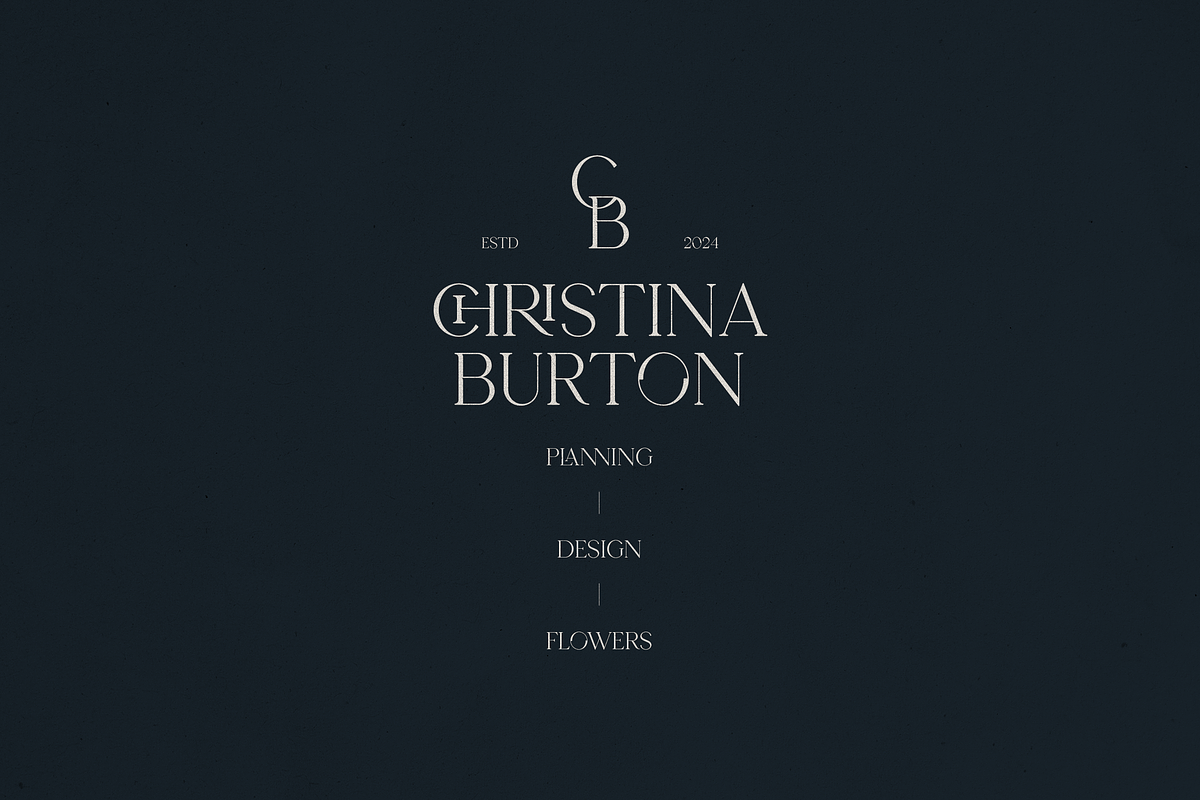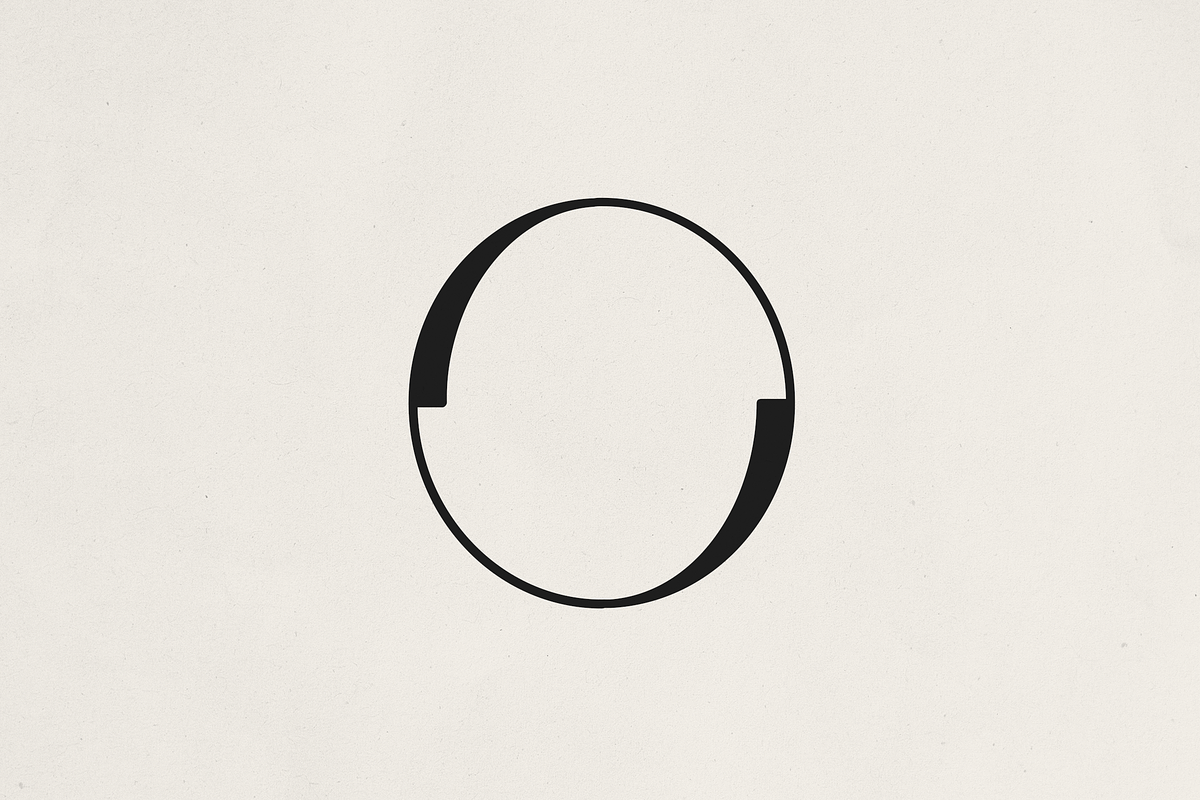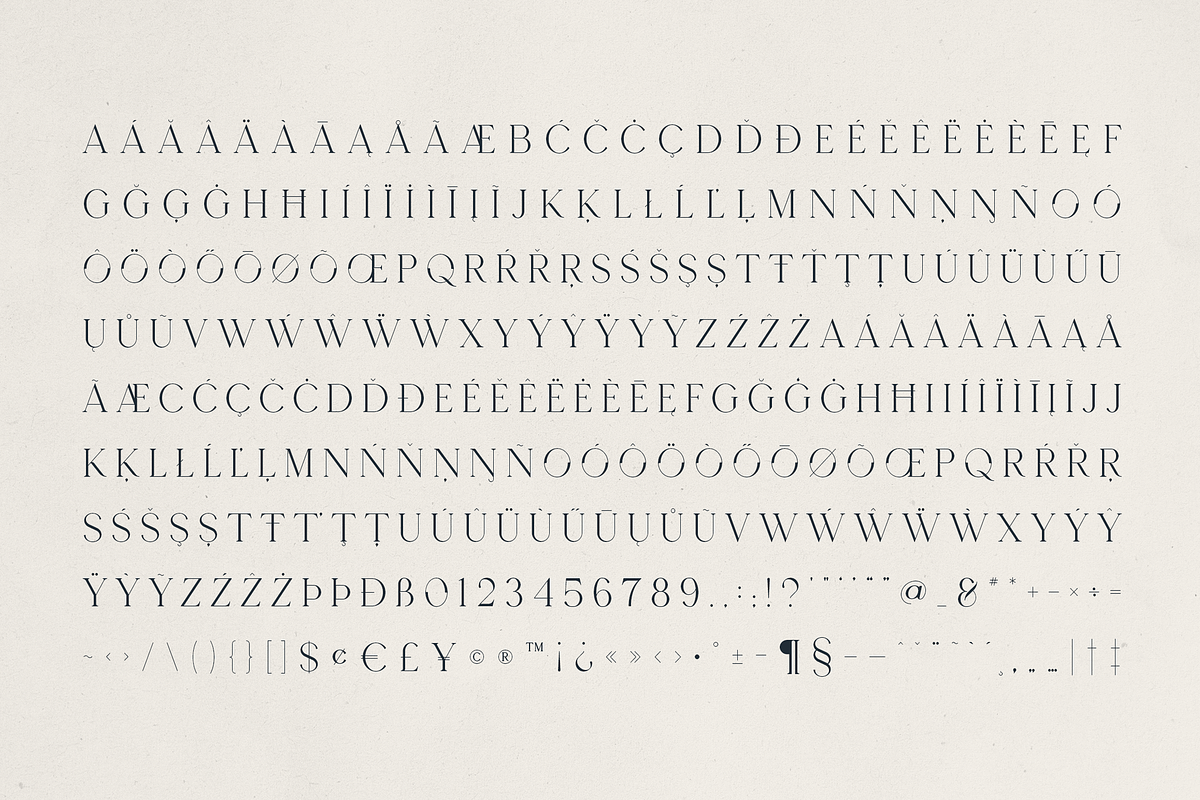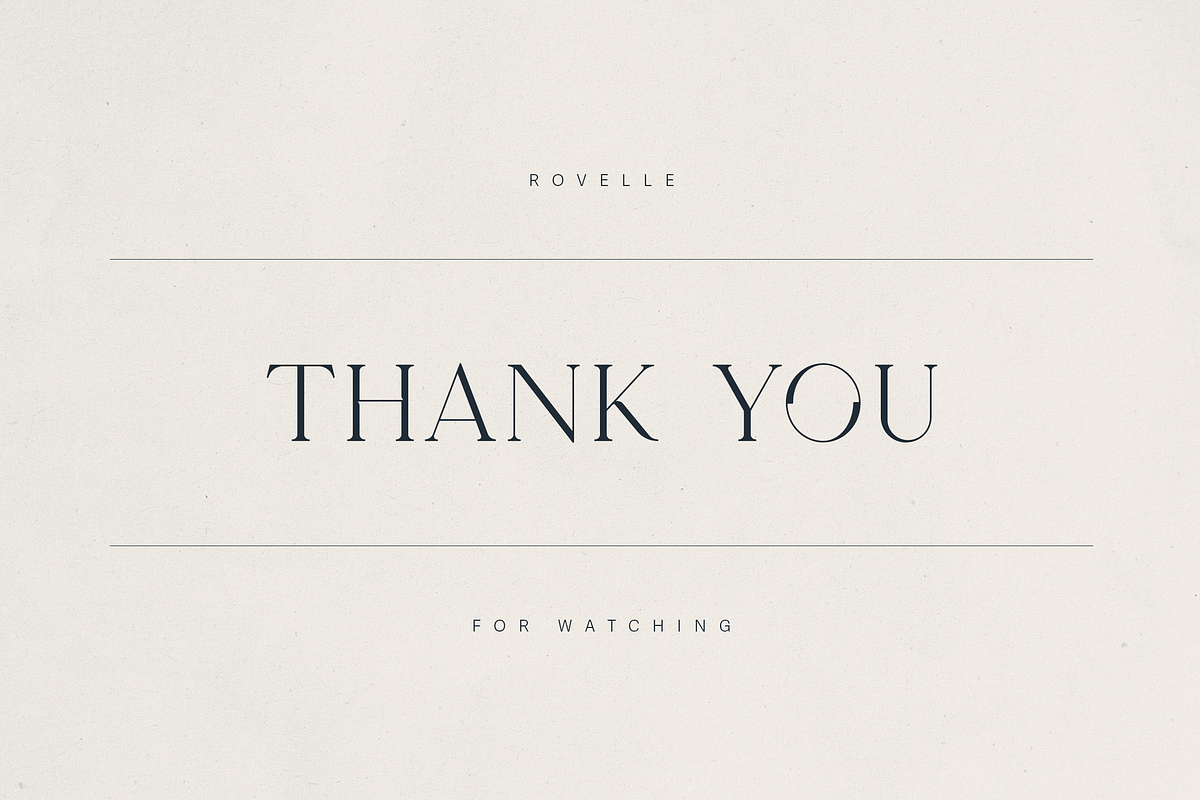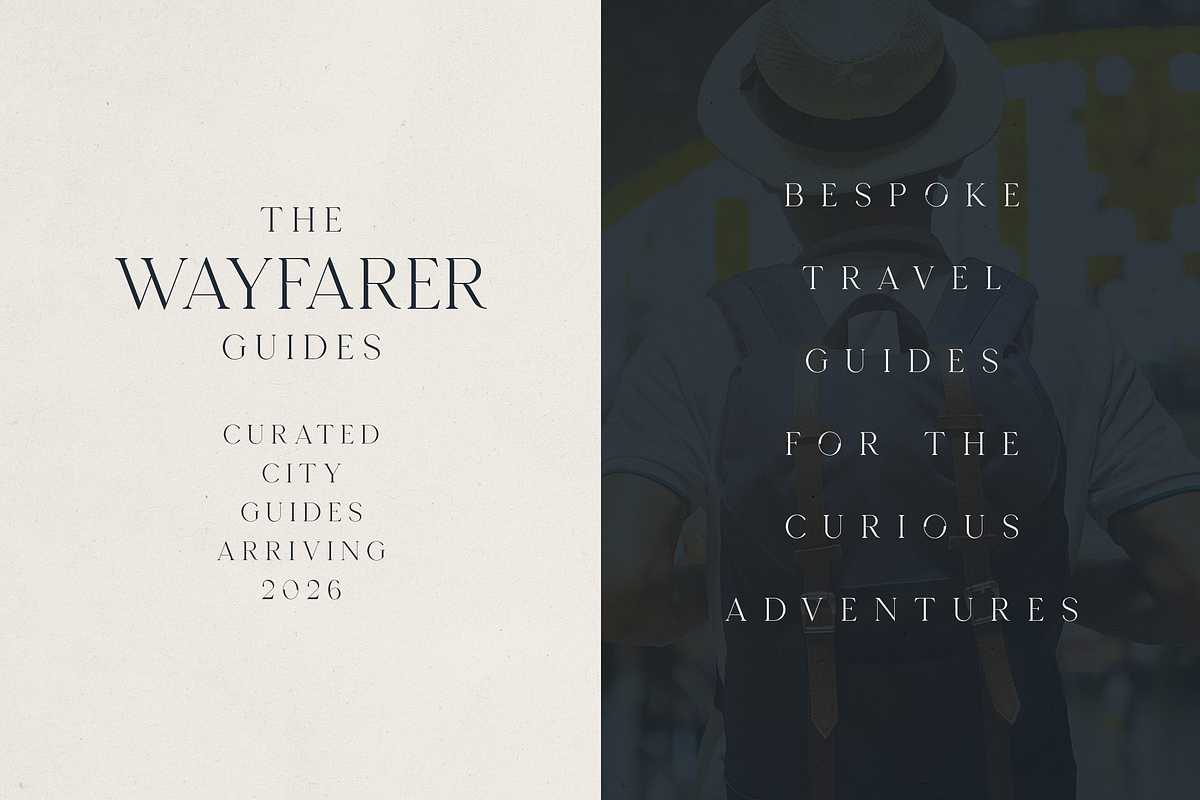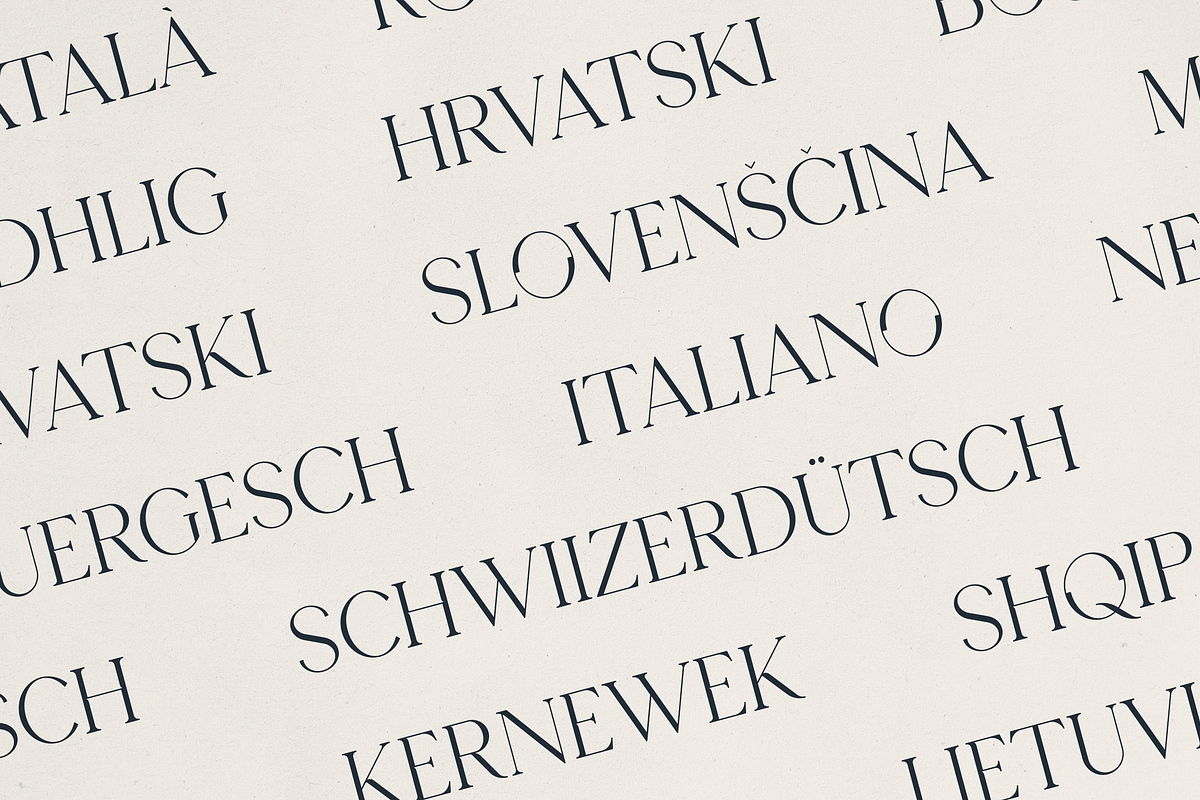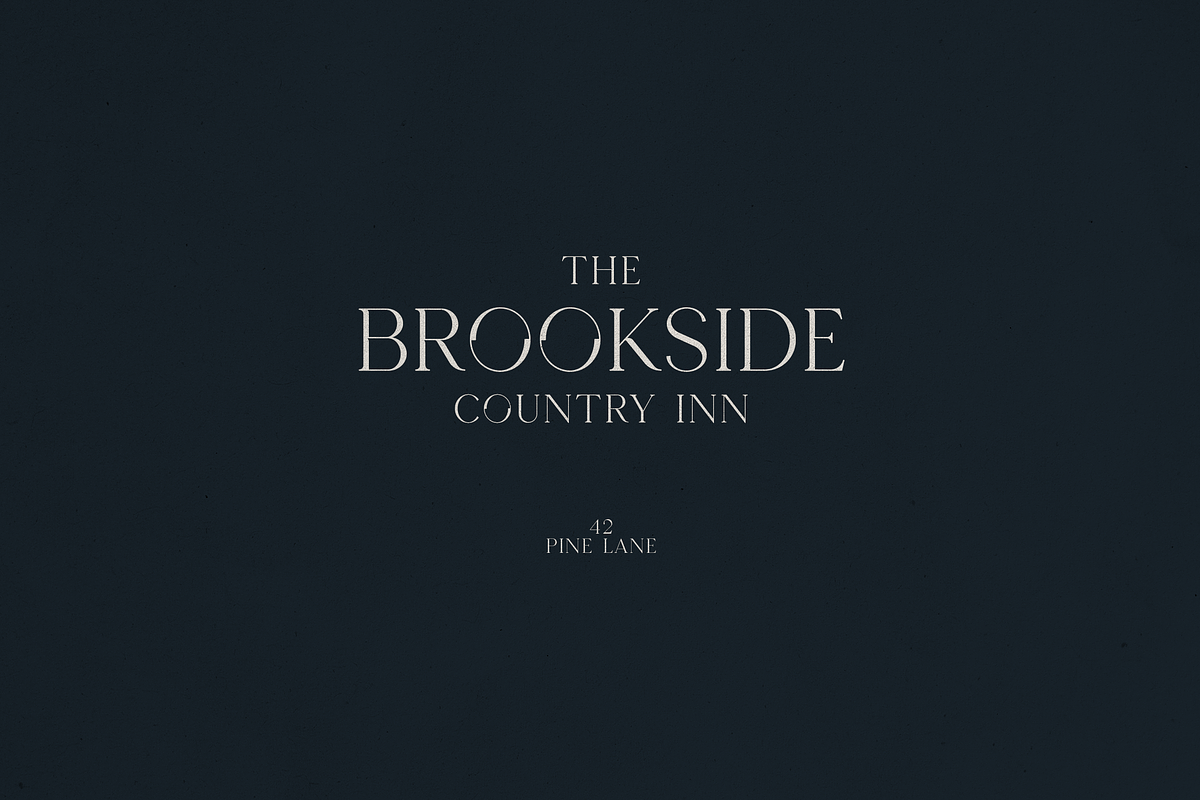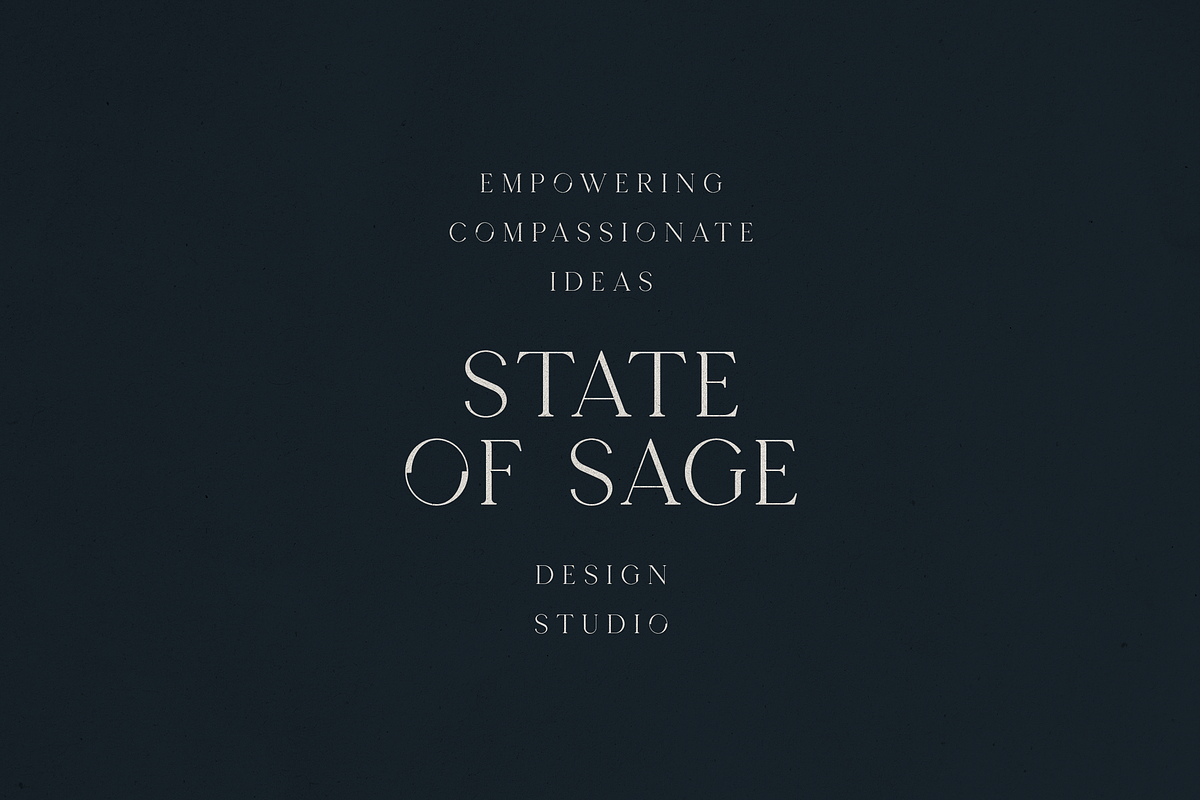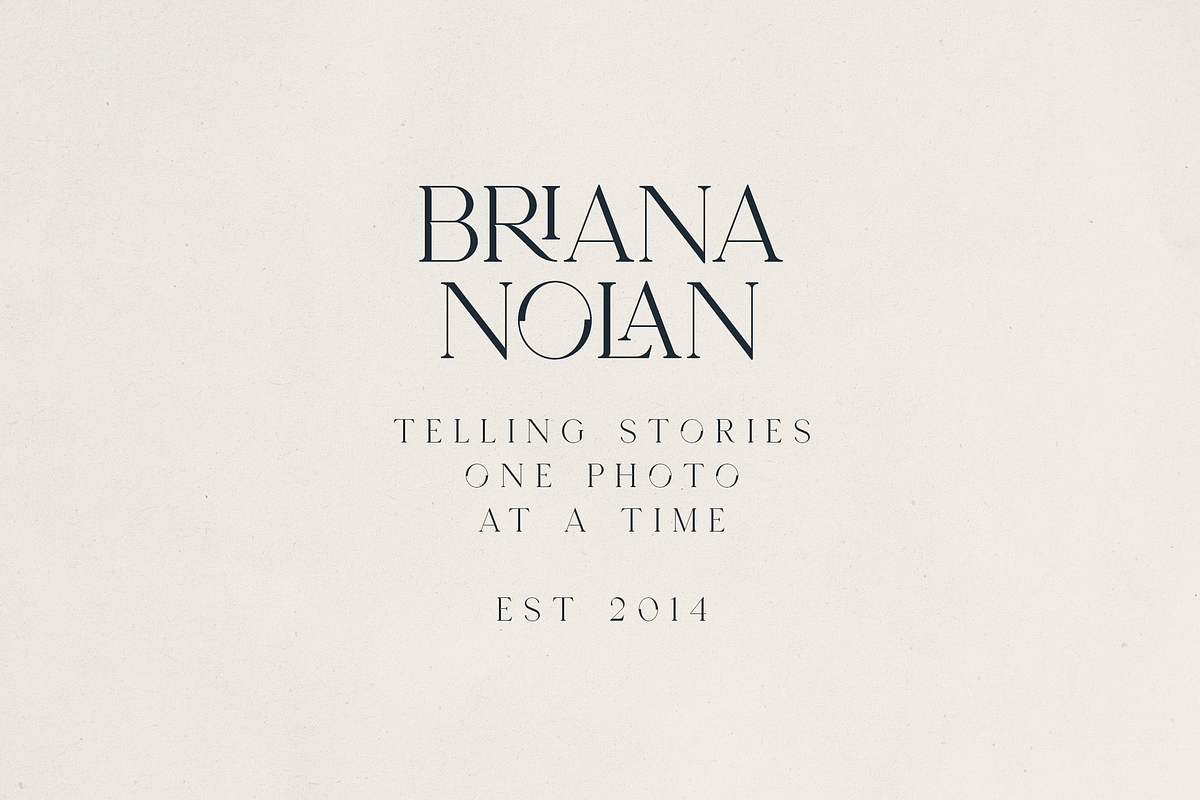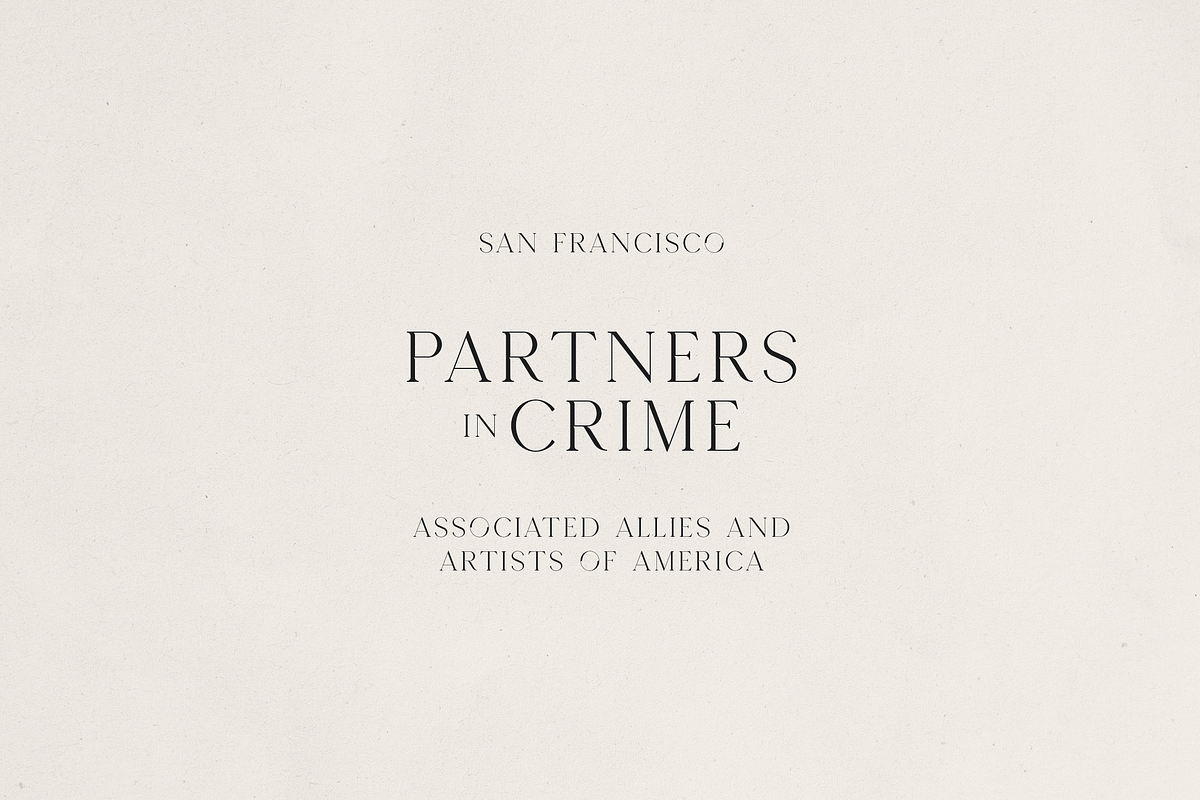
Rovelle — An Elegant Serif Font
Rovelle — An Elegant & Expressive Serif Font
Rovelle is a refined, high-contrast serif font that blends classic sophistication with striking modern detail. Designed with sharp serifs, graceful curves, and an unmistakable character, Rovelle elevates every word it touches. Its unique design feature—a distinctive cutout in the “O” and similarly styled glyphs—adds a contemporary edge to its timeless form.
Ideal for branding, editorials, wedding stationery, luxury packaging, and curated digital experiences, Rovelle exudes confidence, clarity, and artistic flair. Its high legibility and carefully tuned spacing make it equally at home in headlines and longer text passages.
- Uppercase Font
- Punctuation & Symbols
- Multilingual Support (87+ languages)
- Stylish Unique Characters (like the signature “O”)
- Perfect for logos, lifestyle brands, travel publications, and design studios
Whether you’re crafting an upscale brand identity or a bespoke print layout, Rovelle offers elegance with a contemporary soul.